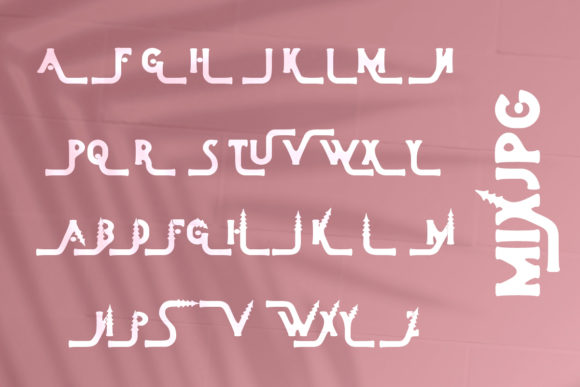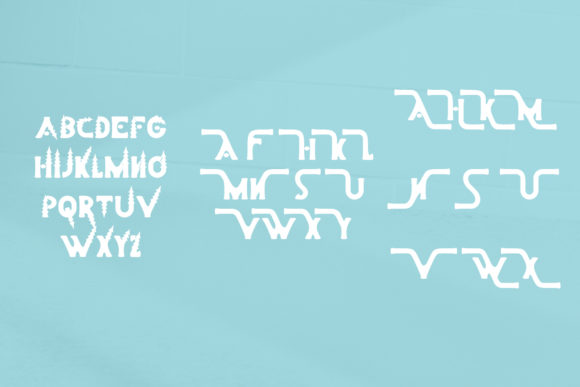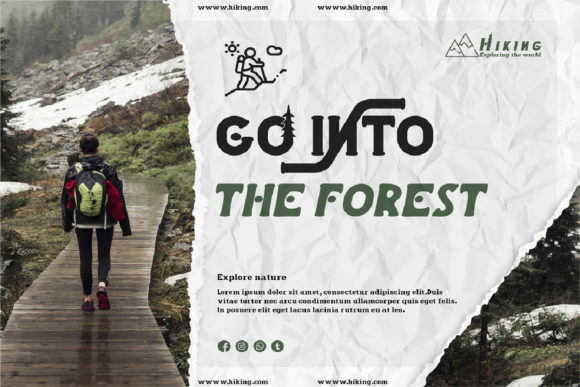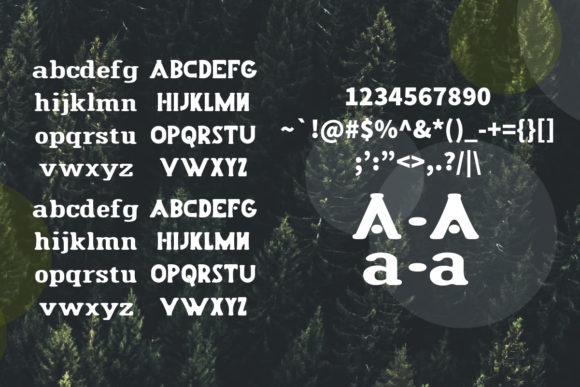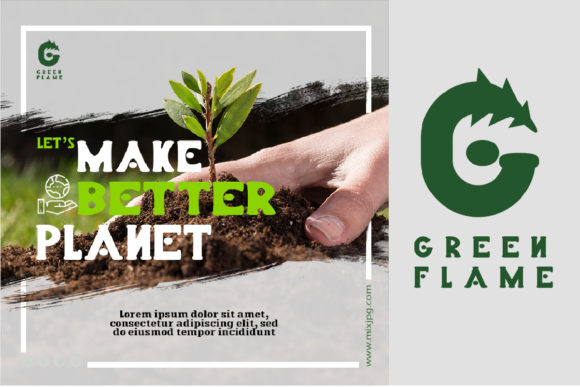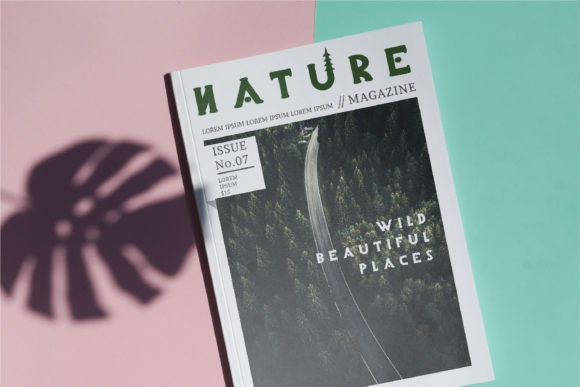
Introduction to Foturest Font
Foturest is a cute decorative font.
It features original alternates that will take your projects to the next level .
Key Features of Foturest Font